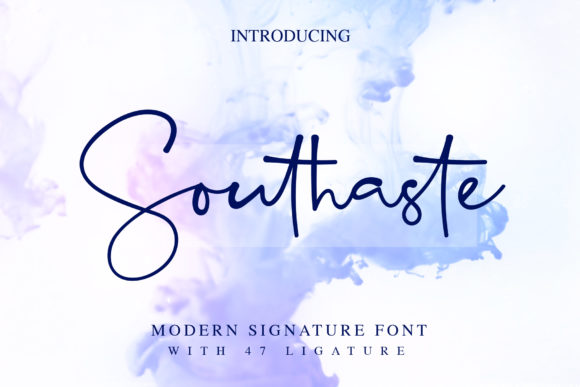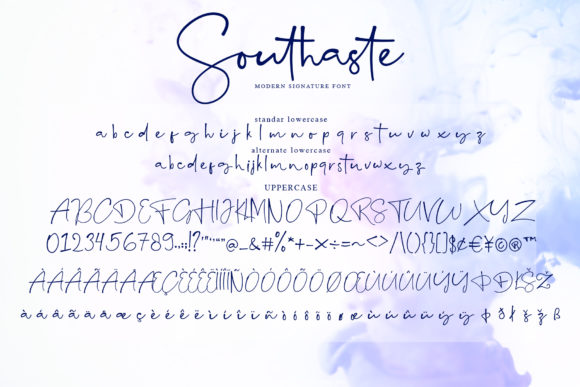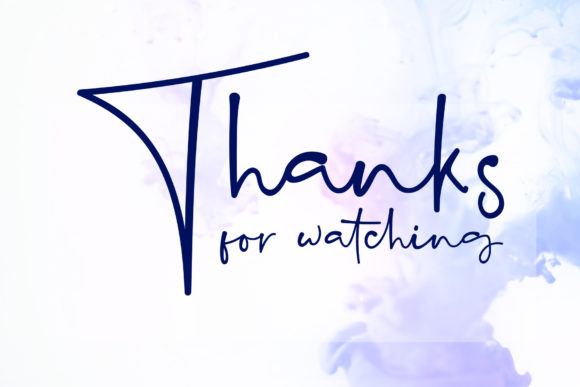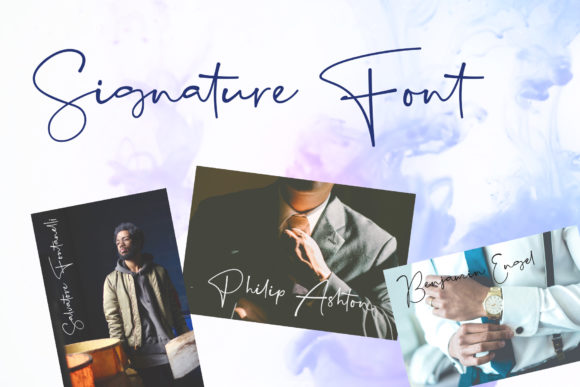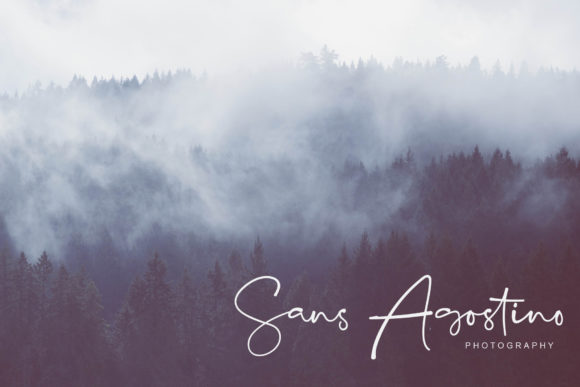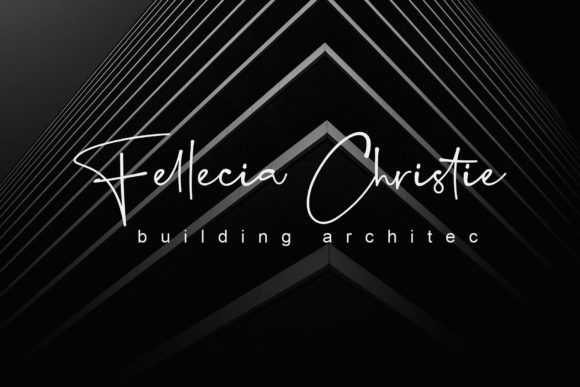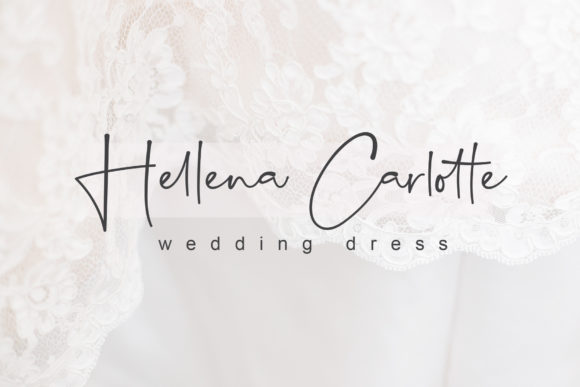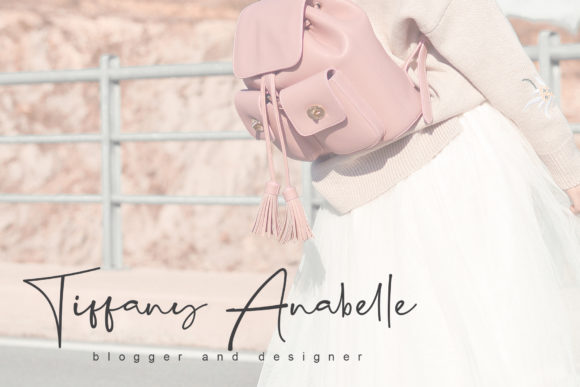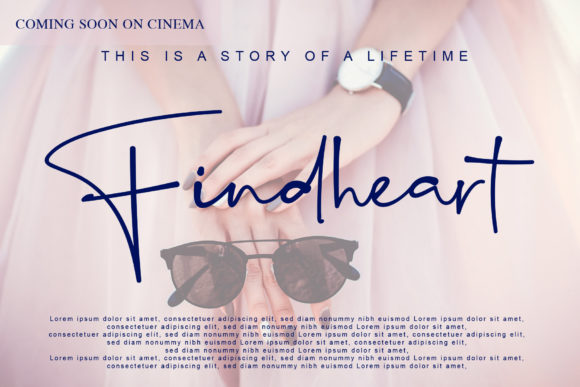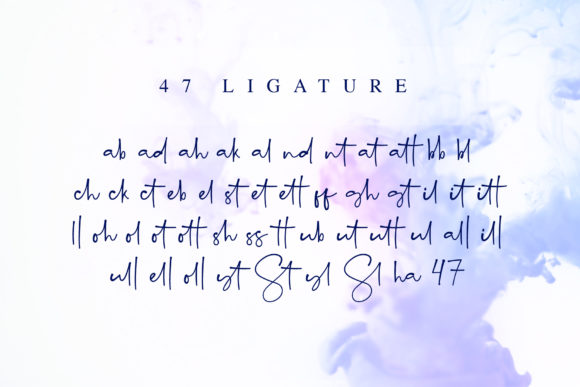
Southaste Font
About Southaste Font
The Southaste is a distinctive handwritten signature script that effortlessly combines simplicity with a modern flair. This font, characterized by its sleek and contemporary style, is a versatile choice suitable for a variety of design applications, including watermarks, signatures, albums, quotes, and more.
What sets The Southaste apart is its ability to convey a sense of individuality and modernity. The simplicity of its design adds a touch of elegance, making it a perfect fit for signatures that demand a personal and refined touch. Its versatility allows it to seamlessly integrate into different creative projects, adding a contemporary aesthetic that resonates across various design contexts.
The Southaste shines particularly well in watermark applications, where a subtle yet impactful signature is needed to enhance the visual identity of photographs or documents. Additionally, its suitability for albums and quotes showcases its adaptability in conveying emotions and messages with a touch of modern sophistication.
Whether applied to digital or print materials, The Southaste contributes to a cohesive and stylish visual language. It stands as a testament to the power of a well-crafted signature script to elevate the overall design, offering a modern and timeless appeal that resonates with a wide range of audiences.
In summary, The Southaste is more than just a font; it’s a signature script that brings a simple, modern, and elegant style to your creative projects. From watermarks to signatures, albums, quotes, and beyond, The Southaste is designed to enhance and complement a variety of design applications with its distinctive and contemporary aesthetic.